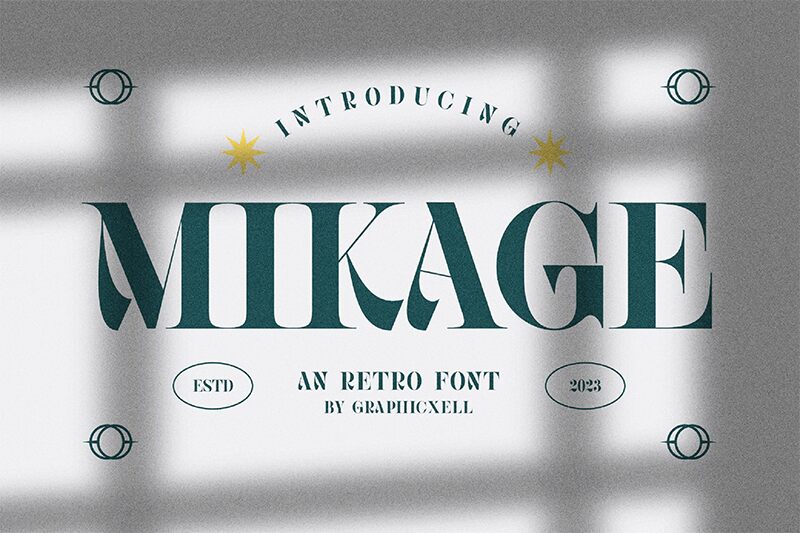
Mikage font by Graphicxell is a stunning serif free font that exudes vintage elegance with its elaborate curves and Baroque inspiration. Its decorative style boasts an ornate design and sophisticated charm, capturing a historical flair that seamlessly blends with a classic aesthetic. The stylish appeal of this font makes it an impressive choice for those looking for that timeless touch in their projects.
Mikage is perfect for use in crafting unforgettable headlines, editorial layouts, book covers, and branding. It can also shine in presentations, websites, social media graphics, and creative advertisements. Its decorated style suits luxurious labels, magazine titles, invitations, and packaging designs.